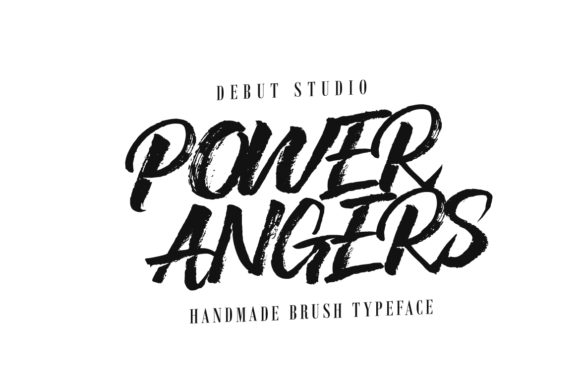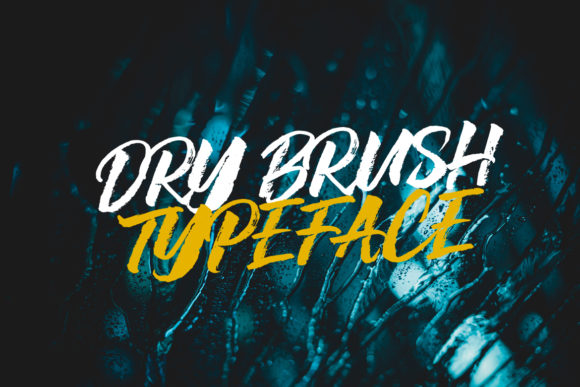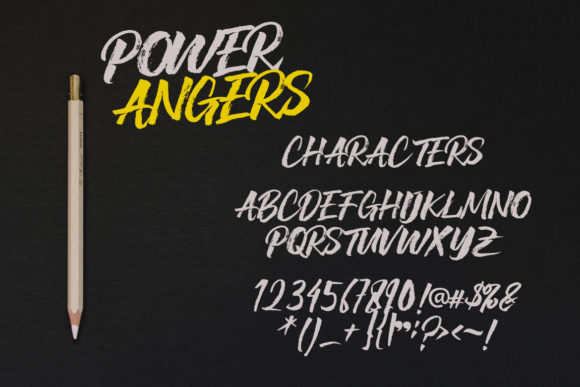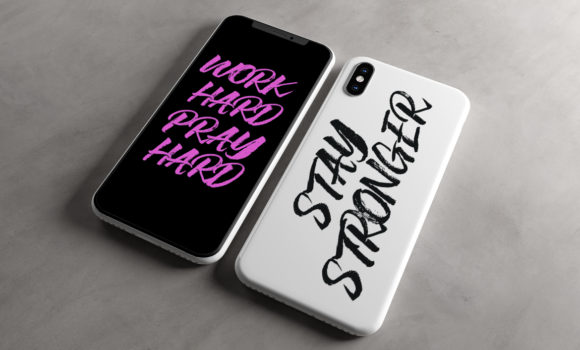
Introduction to Power Angers Font
Do you ever find yourself staring at a blank canvas, waiting for the perfect font to bring your creative project to life? For designers, this moment can be both exhilarating and frustrating. But what if you stumbled upon a font that not only sparks your imagination but also elevates your design game?
Enter Power Angers Font – a game-changing, high-quality font that’s perfect for logos, apparel, quotes, and product packaging. With its fresh, strong aesthetic, this font is sure to make your designs stand out from the crowd. Whether you’re working on a personal project or a commercial one, Power Angers Font is an invaluable resource that’s waiting to be unleashed.
Key Features of Power Angers Font
- High-quality, bold font design suitable for creative projects and modern designs.
- Unique characteristics include a dynamic, energetic feel and a wide range of applications, from headings to titles.
- Perfect for designers seeking a powerful, attention-grabbing font to elevate their creative project.
Honest Review: Power Angers Font
I recently stumbled upon the Power Angers Font while searching for a high-quality font to use in my creative project. As a designer, I’m always on the lookout for unique and stylish fonts that can elevate my designs.
One of the standout features of the Power Angers Font is its bold and edgy aesthetic. The font is perfect for anyone looking to add a touch of attitude to their design. The font’s high contrast and sharp lines make it ideal for headings and titles, while its transparent background allows for seamless integration with any design.
Here are some of the things that work well with the Power Angers Font:
- ✨ Edgy and bold aesthetic that adds attitude to any design
- ✨ Transparent background for easy integration with any design
However, there are a few limitations to the Power Angers Font:
- ⚠️ Limited character set and font styles
- ⚠️ May not be suitable for designs that require a more subtle or elegant font
Overall, I’m impressed with the Power Angers Font and would recommend it to designers looking for a bold and edgy font. While it has some limitations, its unique aesthetic and high-quality design make it a valuable resource for any creative project.
Tips for Getting the Most Out of Power Angers Font
Use the Power Angers Font on a transparent background to achieve a modern and sleek design, or pair it with other fonts to create a unique and stylish look.
The Power Angers Font is ideal for use in social media graphics, logo designs, and other creative projects where a unique and high-quality font is required.
Alternatives to Power Angers Font
1. Impact Font
The Impact Font is a sans-serif font ideal for creating a bold and powerful statement in your creative project. It’s a free download and can be used on a transparent background, making it perfect for graphic design. When to use: Headlines, titles, and emphasis in your design. Comparison: While Impact Font has a similar bold feel to Power Angers Font, it lacks the edgy, distressed texture that makes Power Angers Font stand out. However, Impact Font’s simplicity makes it a high-quality design resource for a more classic look.
2. Bebas Neue Font
Bebas Neue Font is a modern sans-serif font with a clean and minimalist design. It’s a free download and suitable for use on a transparent background. When to use: Body text, captions, and labels in your design. Comparison: Bebas Neue Font is a more elegant and refined alternative to Power Angers Font, offering a high-quality design resource for a more sophisticated look. However, it may not be as attention-grabbing as Power Angers Font due to its cleaner design.